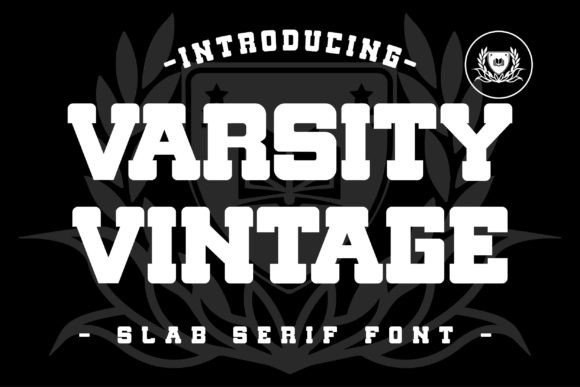
Introducing Varsity Vintage Font: The Ultimate College-Inspired Typeface
In the world of typography, fonts play a crucial role in shaping brand identities and conveying messages. For those seeking a font that embodies the spirit of classic college and high school aesthetics, Varsity Vintage is an exceptional choice. This sporty, varsity-style font is suitable for a wide range of professional branding applications, offering versatility while maintaining its distinctive charm.
What is Varsity Vintage Font?
Varsity Vintage is a unique college font designed to capture the essence of athletic and academic design. Each alphabet stands out with its bold, yet elegant structure, making it perfect for creating memorable typography, eye-catching posters, and stunning packaging designs. Whether you’re a designer, entrepreneur, or simply someone looking to elevate their brand, Varsity Vintage offers the perfect blend of style and sophistication.
Key Features of Varsity Vintage Font
- Sporty and Varsity-Style Design: Varsity Vintage boasts a classic, athletic design that is reminiscent of traditional college and high school aesthetics.
- Versatility: This font is suitable for a wide range of professional branding applications, including logos, watermarks, posters, and packaging designs.
- Distinctive Charm: Varsity Vintage maintains its unique charm, setting it apart from other fonts and making it perfect for brands looking to establish a strong identity.
- Elegant Structure: Each alphabet features a bold, yet elegant structure, making it perfect for creating memorable typography and eye-catching designs.
Uses of Varsity Vintage Font
Varsity Vintage is an incredibly versatile font that can be used in various professional branding applications. Here are some of the ways you can utilize this exceptional college font:
1. Logo Design
Create a logo with memorable typography that stands out from the crowd. Varsity Vintage’s bold and elegant structure makes it perfect for logos that require a strong, yet sophisticated design.
2. Watermark Design
Protect your work with a unique watermark that features the Varsity Vintage font. This will not only add a touch of elegance to your designs but also provide a professional way to safeguard your intellectual property.
3. Poster Design
Create eye-catching posters for events, promotions, or announcements using Varsity Vintage. This font’s sporty and varsity-style design is sure to grab attention and leave a lasting impression.
4. Packaging Design
Elevate your product packaging with Varsity Vintage. This font’s distinctive charm and elegant structure make it perfect for creating stunning packaging designs that stand out on store shelves.
Benefits of Using Varsity Vintage Font
Varsity Vintage offers numerous benefits for designers, entrepreneurs, and brands looking to establish a strong identity. Here are some of the advantages of using this exceptional college font:
1. Unique Identity
Varsity Vintage helps create a unique identity for your brand, setting you apart from competitors and making your brand more memorable.
2. Versatility
This font’s versatility makes it suitable for various professional branding applications, saving you time and effort in finding the perfect font for your project.
3. Professionalism
Varsity Vintage’s elegant structure and sporty design convey a sense of professionalism, making it perfect for brands looking to establish a strong and sophisticated image.
4. Emotional Connection
This font’s classic, athletic design creates an emotional connection with audiences, evoking feelings of nostalgia and school spirit.
Varsity Vintage is an exceptional college font that offers a sporty, varsity-style design, suitable for a wide range of professional branding applications. Its versatility, distinctive charm, and elegant structure make it perfect for creating memorable typography, eye-catching posters, and stunning packaging designs. Whether you’re a designer, entrepreneur, or simply someone looking to elevate your brand, Varsity Vintage is an excellent choice.